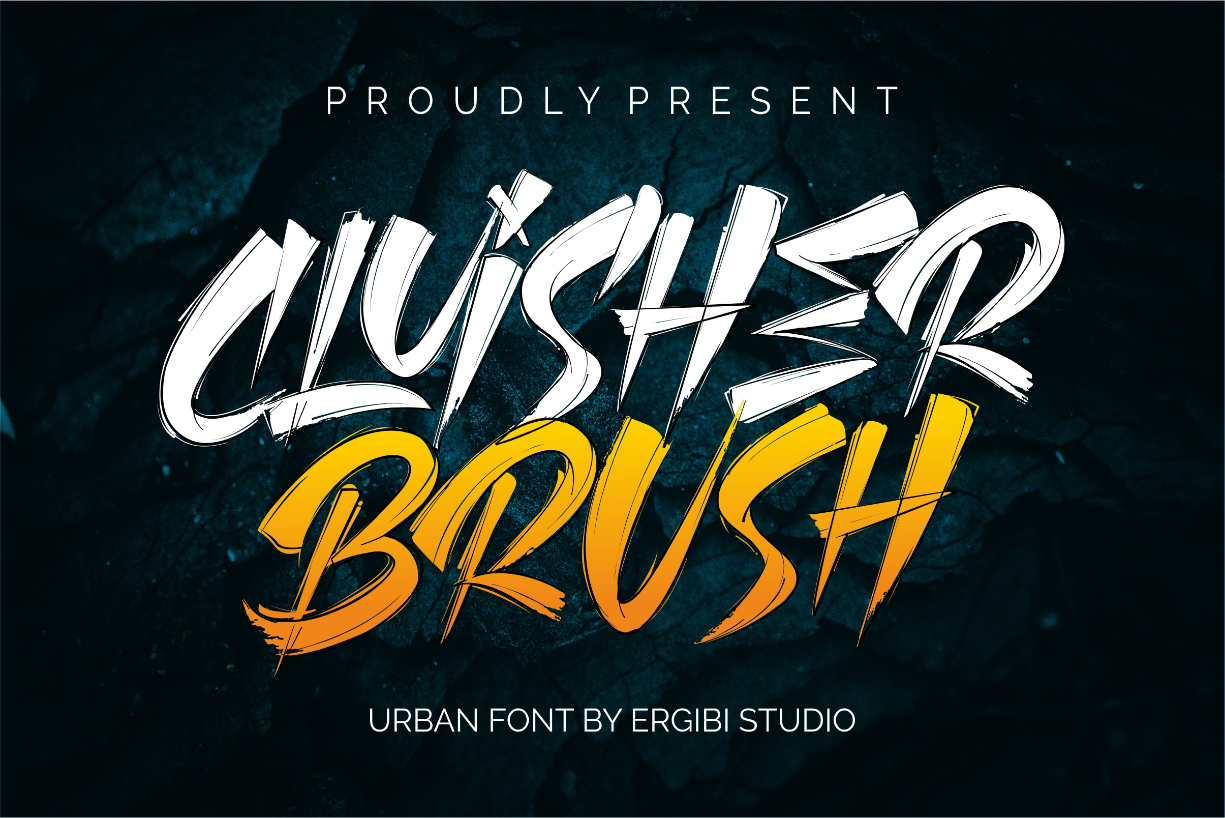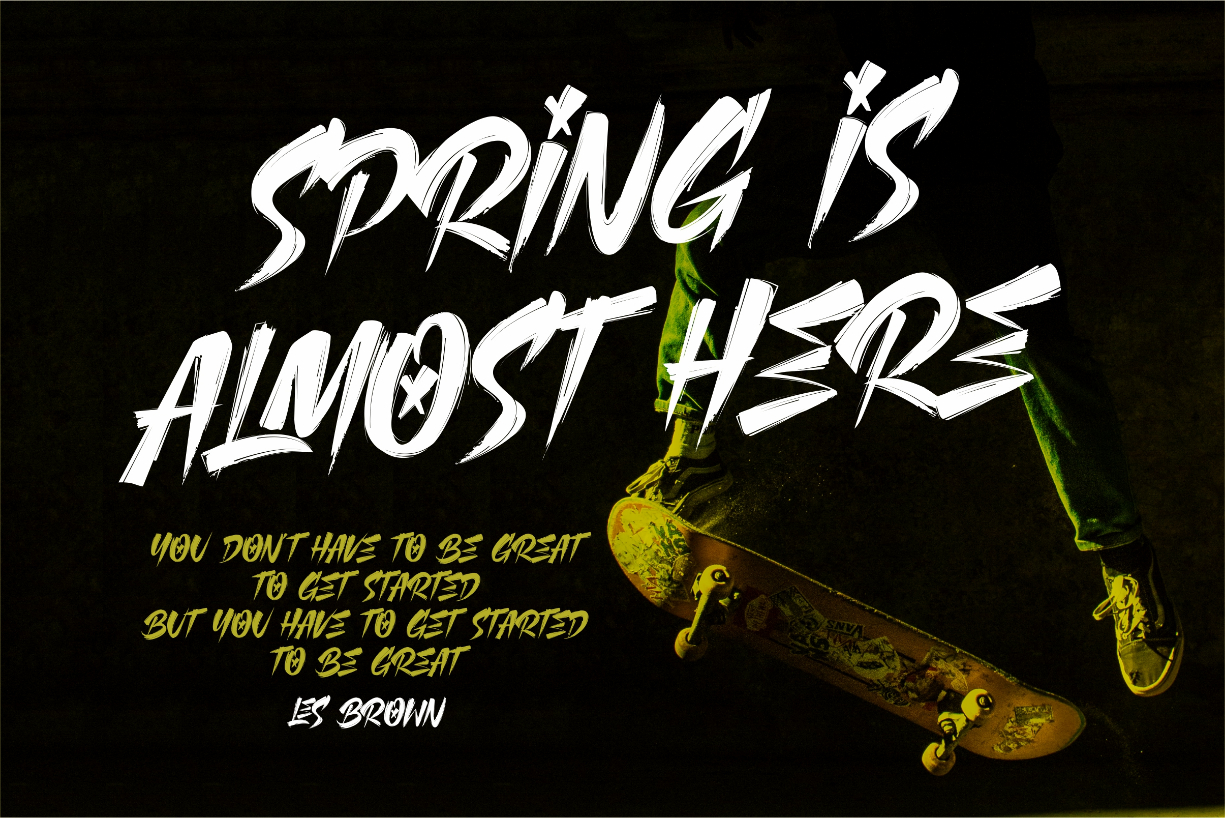
About Cluisher Brush Font
PROUDLY PRESENT CLUISHER BRUSH is a font type brush with additional fonts as the outline that you can adjust the color to make this font look more perfect CLUISHER is ideal for logos, apparel,T-shirt,Hoodie, graffiti,quotes, product packaging, or anything which needs a typographic turbo-boost.